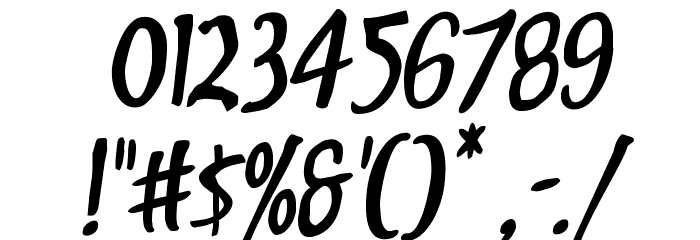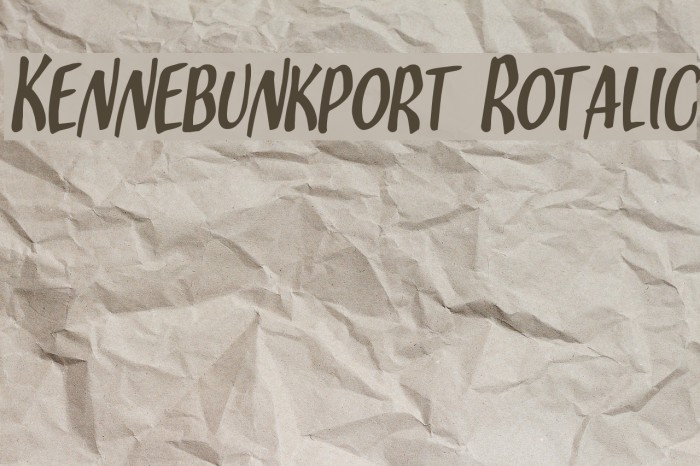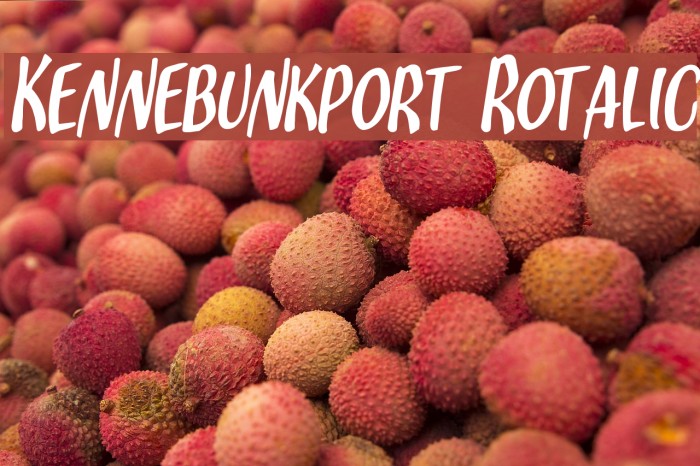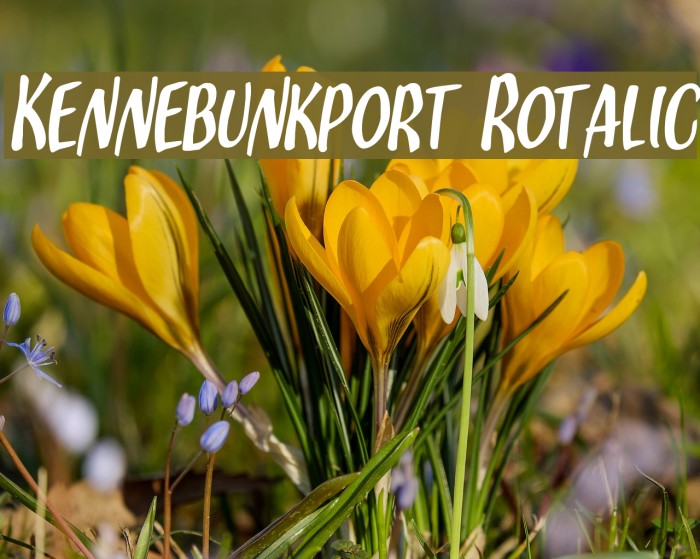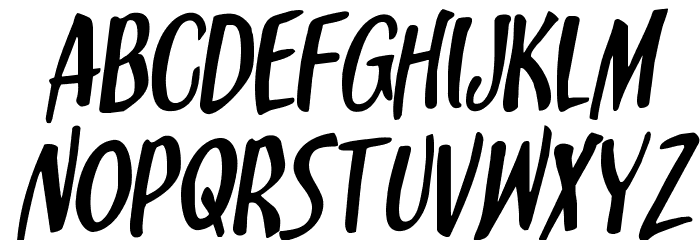
Kennebunkport Rotalic Font
Kennebunkport Rotalic Description
This font features a bold and dynamic handwritten style with a slight slant, giving it an energetic and informal appearance. The letters are thick and have a consistent stroke width, which adds to the boldness of the design. The characters are slightly condensed, enhancing the compact and lively feel. The uppercase and lowercase letters maintain a cohesive style, while the numerals and special characters complement the overall aesthetic. This font is well-suited for projects that require a personal touch or a sense of movement and creativity.
| Proposed Projects | Ideal for branding, posters, social media graphics, and creative projects that require a personal and lively touch. |